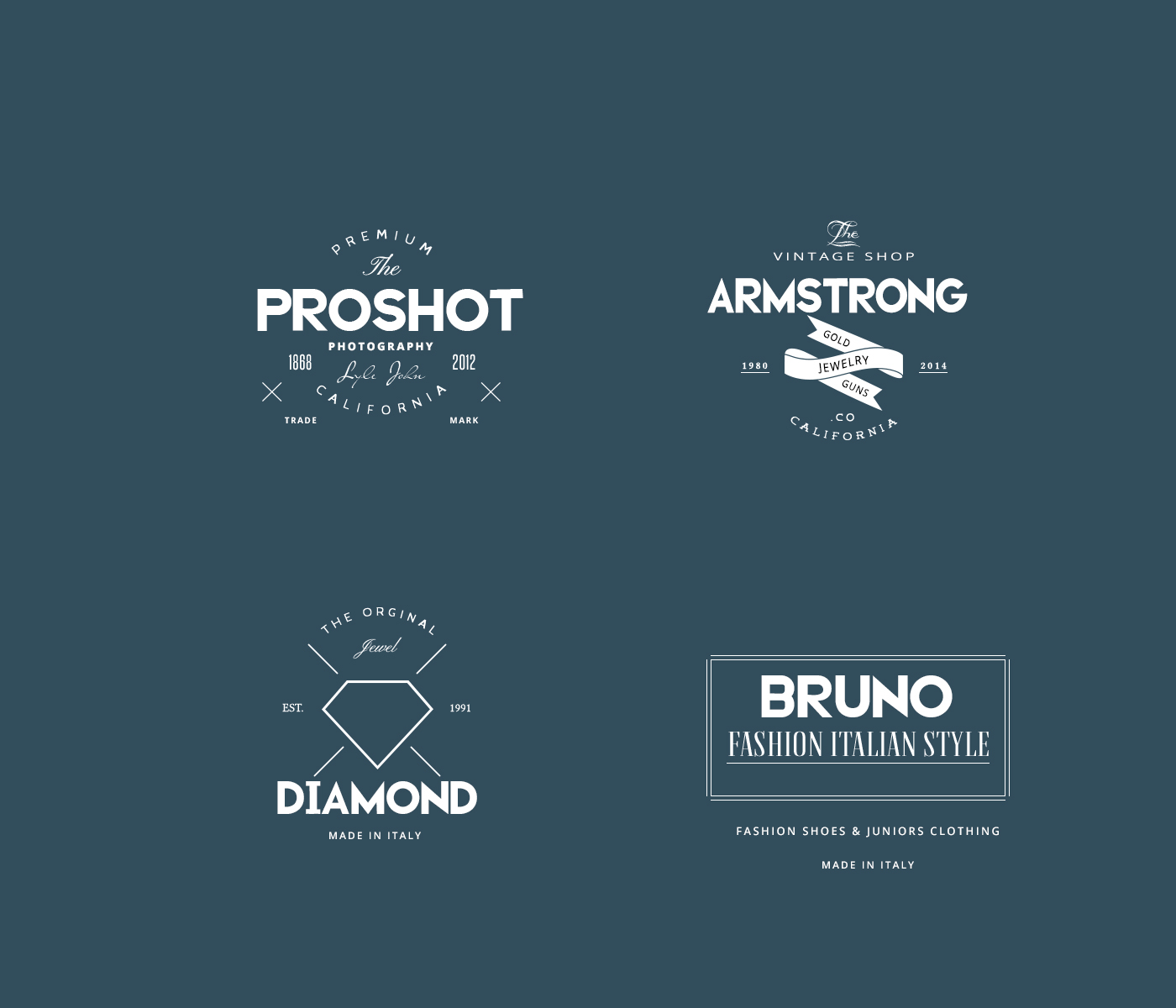
Madyson is clean and,elegant sans serif typeface.It is an all caps font inspired from architechture primarily. Its boldness and sharp edges commands a lot of attention and is perfect for logos, headlines, print, media, typography, web, photography, interaction design and much more. It is slightlly off geometric and looks good both small and big. The typeface comes extended glyphs and is free for personal use.